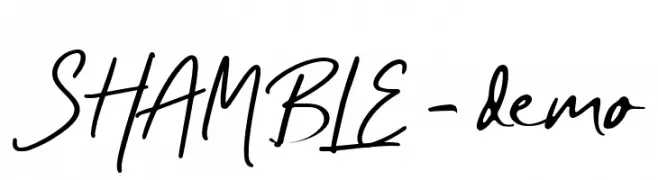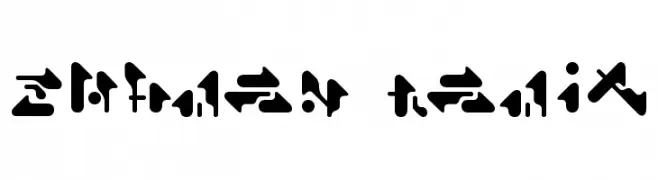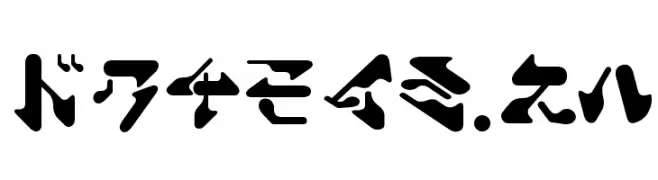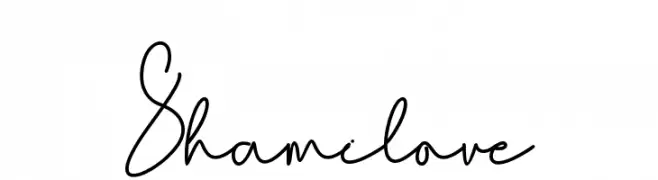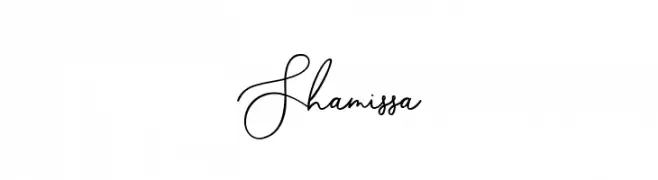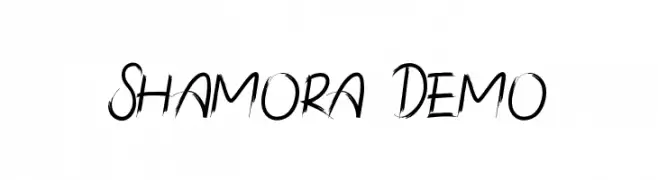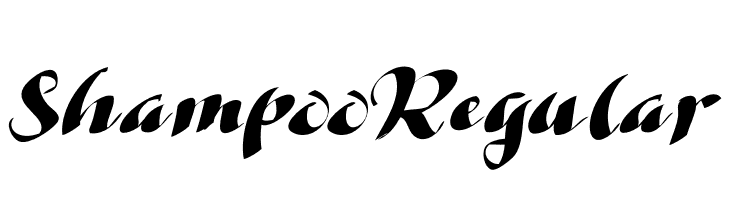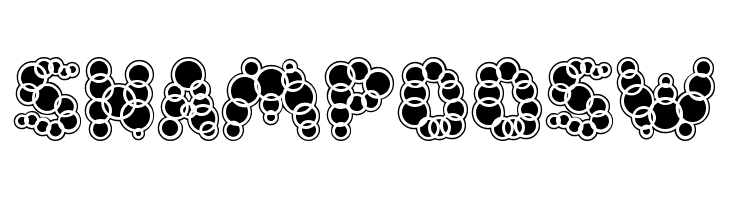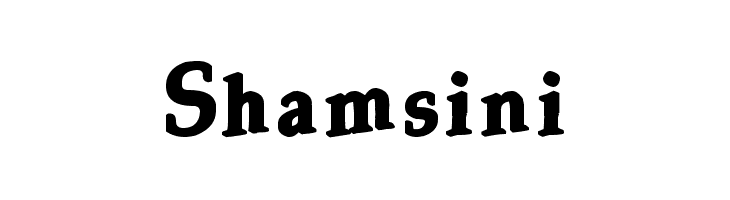
An ornate and decorative font with intricate detailing and bold characters.
A dynamic and expressive handwritten font with fluid, cursive strokes.
A bold, abstract font with geometric, futuristic design elements.
A bold, abstract font with futuristic and geometric design elements.
A playful and elegant handwritten script font.
A modern, elegant script font with flowing, cursive characters.
A bold, expressive script font with flowing, cursive letterforms.
A dynamic, brush-like font with sharp, angular strokes and an artistic flair.